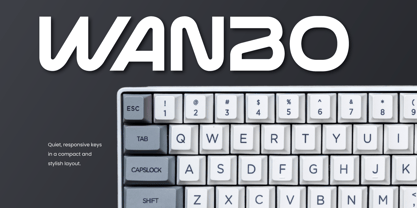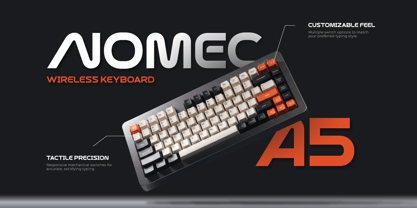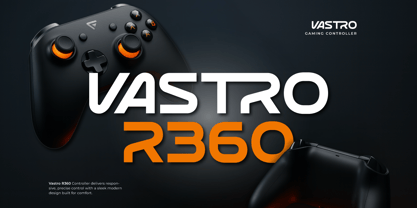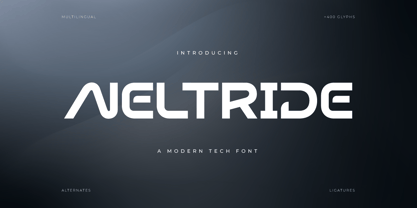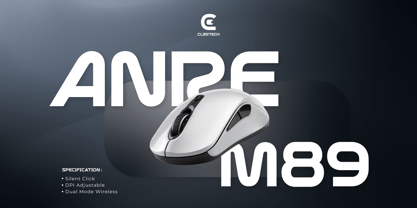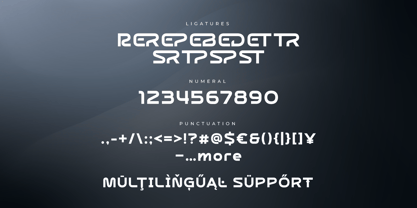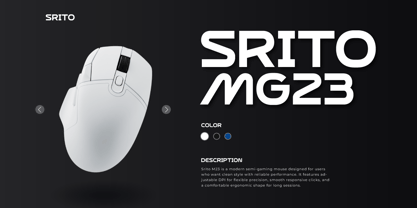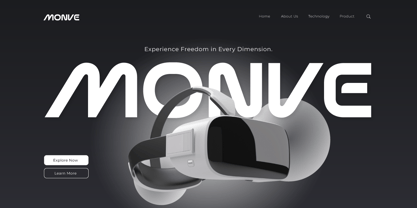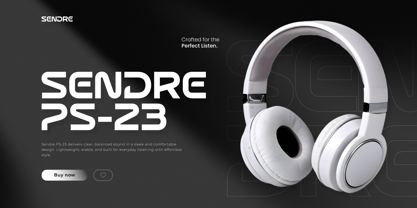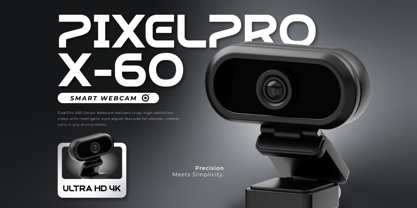
Neltride delivers a powerful and modern logotype character, engineered for corporate design, tech branding, and digital visual dominance. With strong structured letterforms, Neltride injects reliability and authoritative energy into every composition.
Built for striking headlines and posters, this typeface carries a futuristic, clean aesthetic, ideal for apps, web interfaces, tech campaigns, and game visuals driven by a forward-thinking identity.
A bold modern scfi attitude with electronic future appeal, perfect for cinematic titles, techno-driven logotypes, and next-gen digital branding. Its modern character ensures your visuals look strong, confident, and digitally iconic.
- Multilingual Support: Fully supports 85+ languages, including: